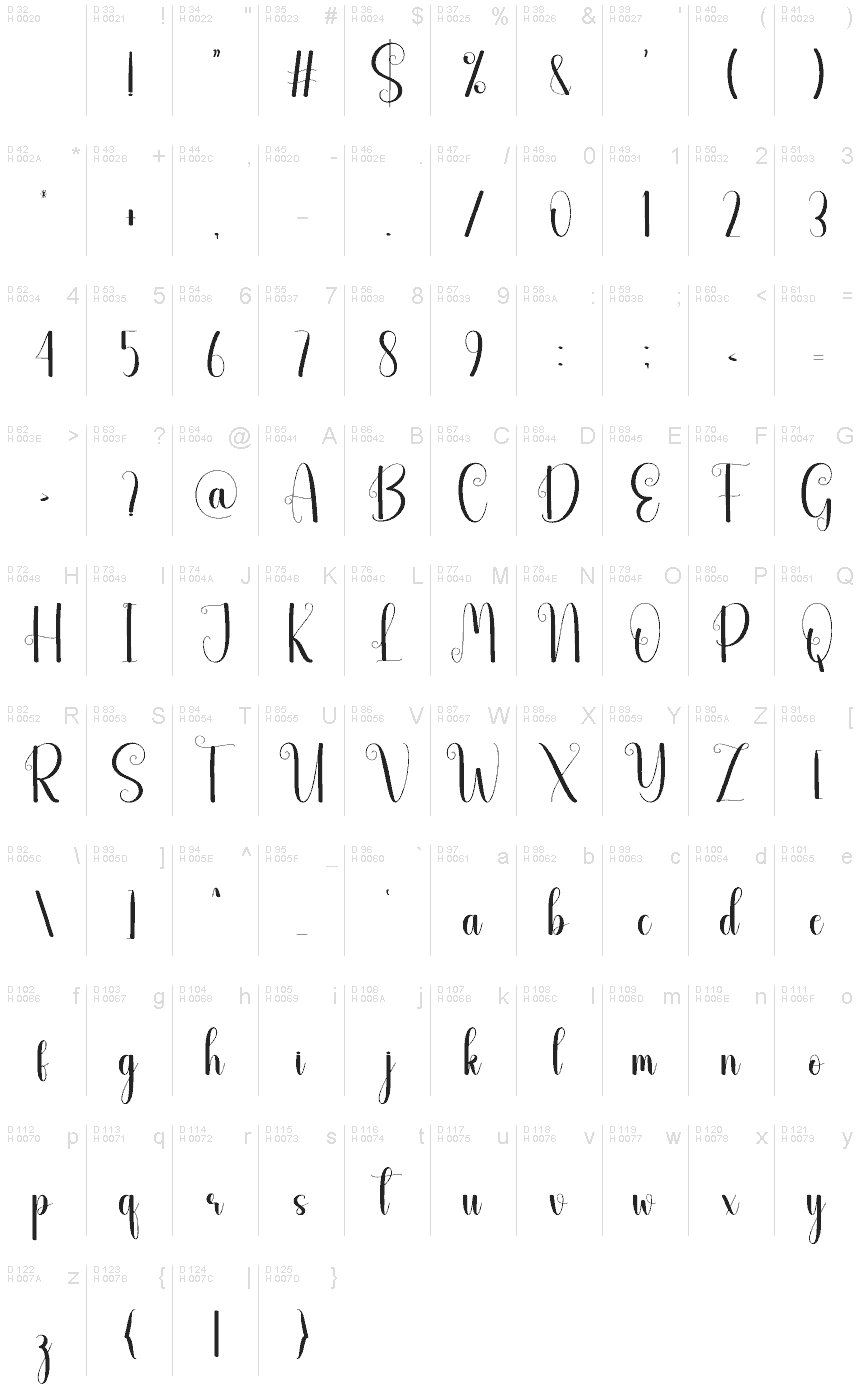
Backpack
Backpack font is an elegant calligraphy typeface designed by Andi Moz. Its expressive, fluid, and decorative features bring sophistication to any project. The romantic and artistic style is perfect for adding a touch of beauty that captures the eye.
This free calligraphy font is suitable for logos, branding, social media posts, invitations, posters, greeting cards, watermarks on photography, stationery products, signage presentations to clients and many other undertakings.